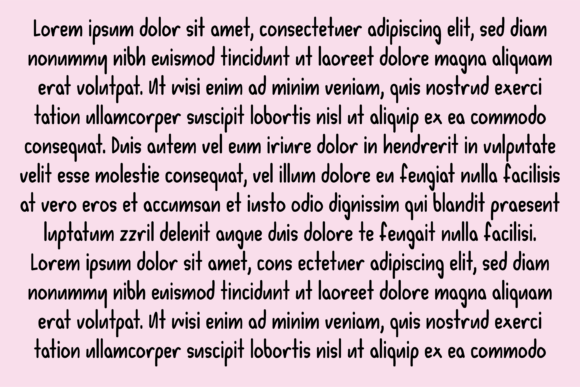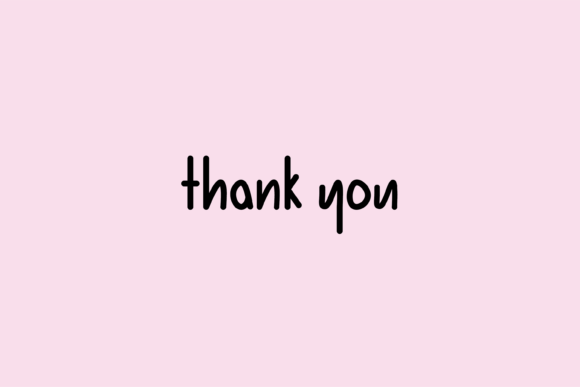
Unlock the Charm of Your Designs with Baldum Font
Have you ever stared at a blank page, wondering how to bring your creative vision to life? Maybe you’ve been searching for that perfect font to elevate your design and make it truly special. I’ve been there too, and that’s why I’m excited to introduce you to Baldum Font – a simple yet whimsical handwritten font that’s sure to brighten up your designs.
Baldum Font is designed to add a touch of personality to your projects, making it perfect for logos, wedding invitations, quotes, advertisements, and more. Its friendly and approachable feel will help you connect with your audience on a deeper level, making it an invaluable asset for any designer. With Baldum Font, you can confidently add a unique touch to your work, and the results will speak for themselves.
Baldum Font Key Features
- Unique Characteristics: Baldum Font features a unique blend of modern and vintage elements, with a focus on clean lines, geometric shapes, and subtle textures
Baldum Font Review
I recently had the chance to work with the Baldum font, and I must say it’s an interesting addition to any design project. Here’s my honest review.
- ✨ Unique aesthetic: The Baldum font has a distinct, futuristic feel that can add a touch of sophistication to your designs.
- ✨ Versatile: This font can be used in a variety of contexts, from tech and gaming to fashion and luxury brands.
- ✨ High-quality rendering: The font’s shapes and lines are smooth and well-defined, making it perfect for digital use.
- ⚠️ Limited font weight options: The Baldum font only comes in a few weights, which may not be ideal for projects that require a wide range of font weights.
- ⚠️ Limited language support: The font may not support all languages, which could be a problem for global brands or projects that require multilingual support.
The Baldum font is a great choice for designers looking for a unique and sophisticated font to add to their projects. While it may have some limitations, its versatility and high-quality rendering make it a valuable addition to any design library. With a bit of creative thinking, the Baldum font can be used in a wide range of contexts and can help take your designs to the next level.
Baldum Font is ideal for:
• Modern and minimalist designs
• Typography-heavy designs
• Professional and corporate presentations
• Short paragraphs of text